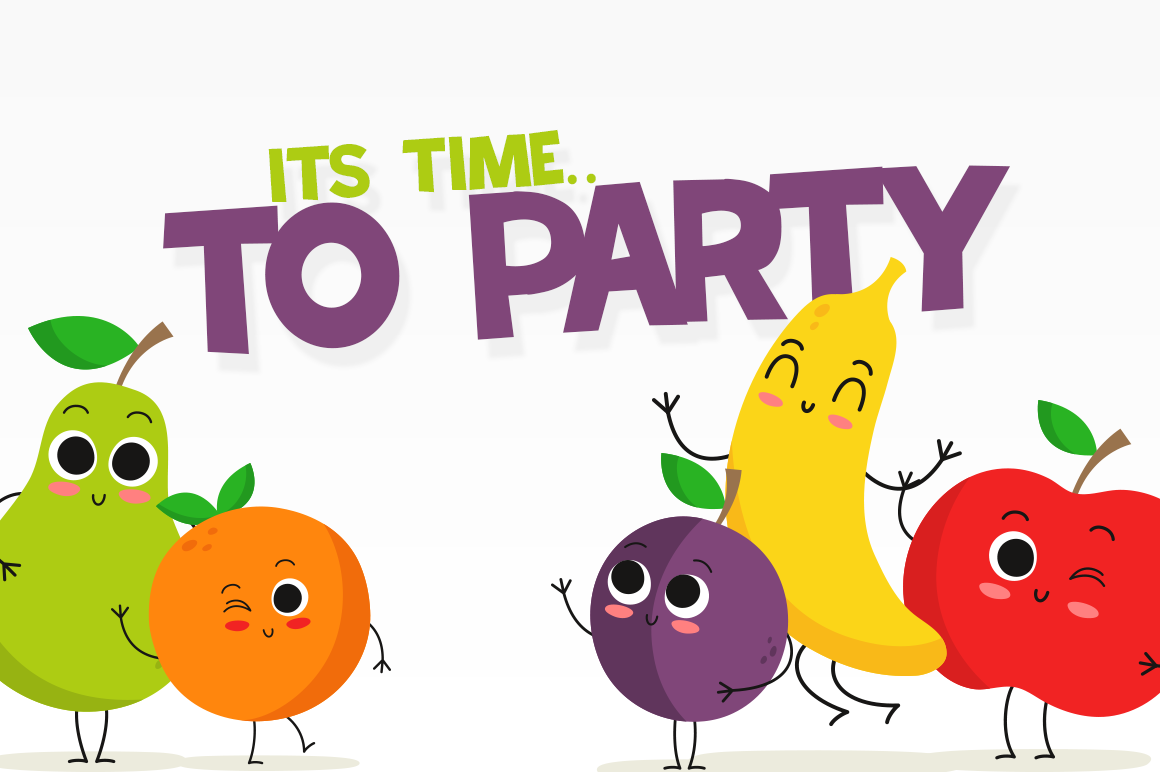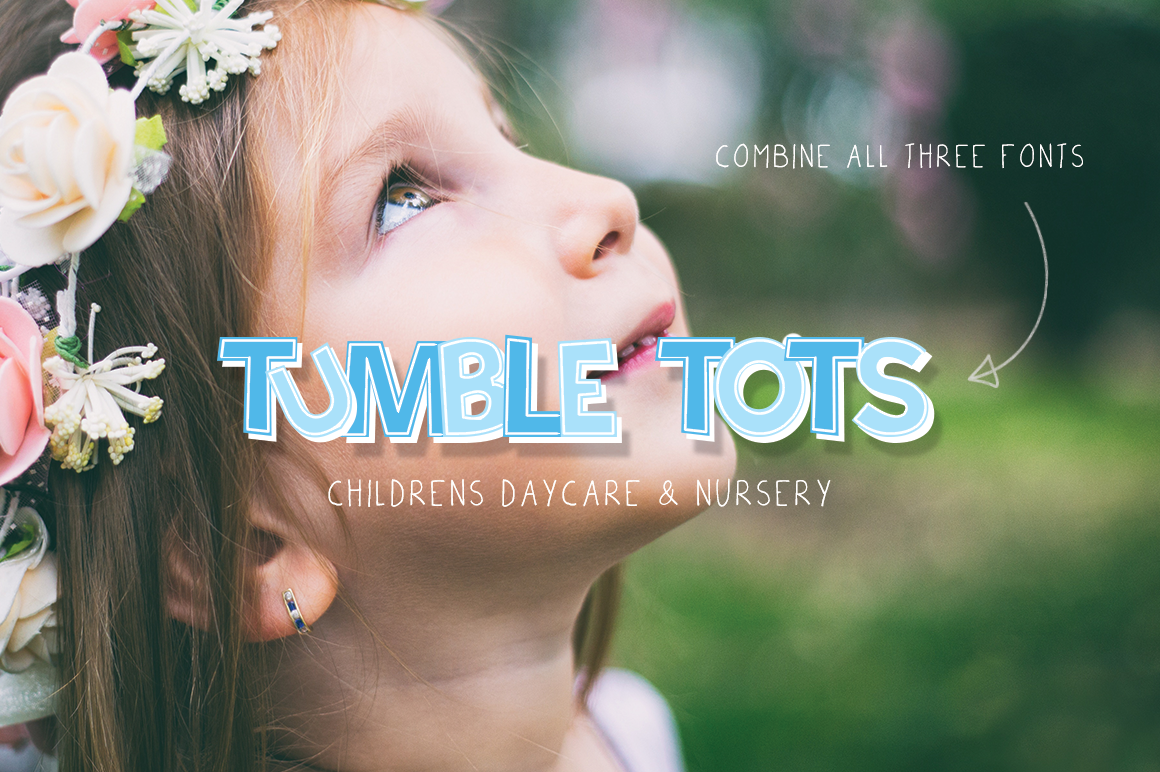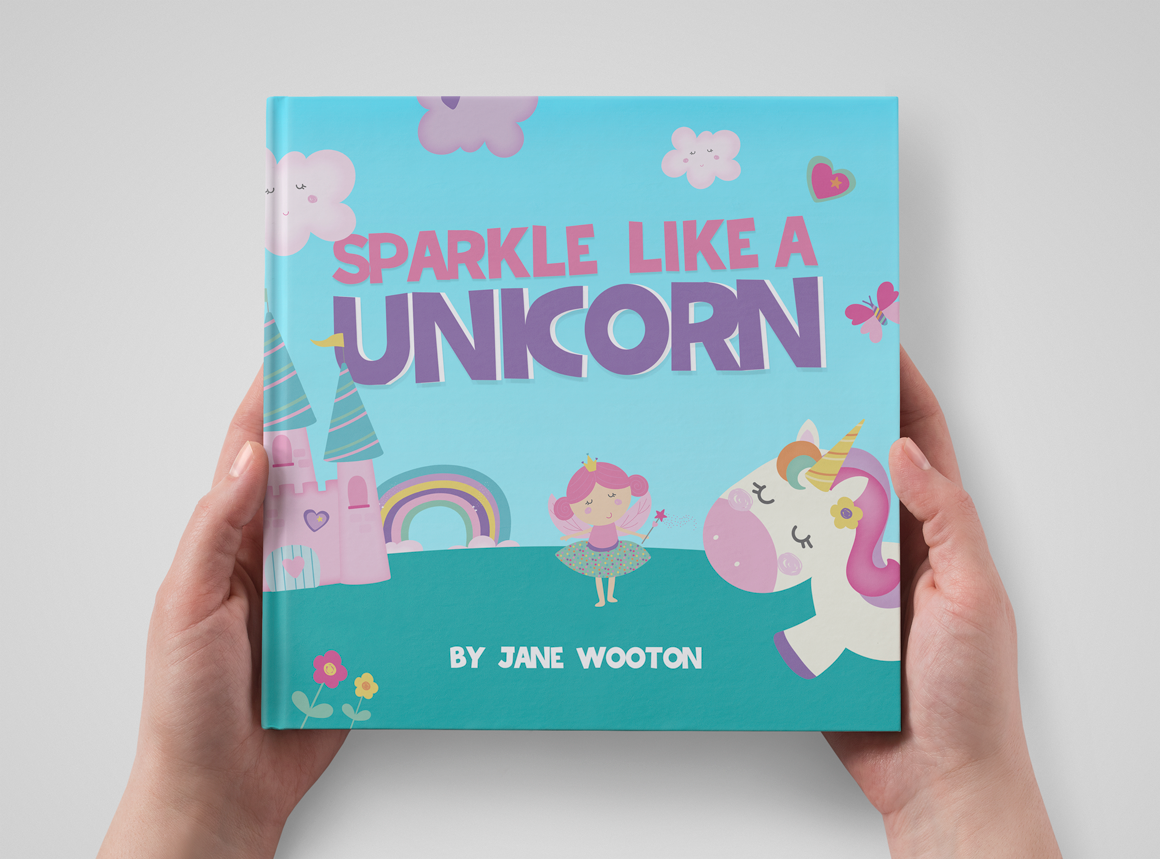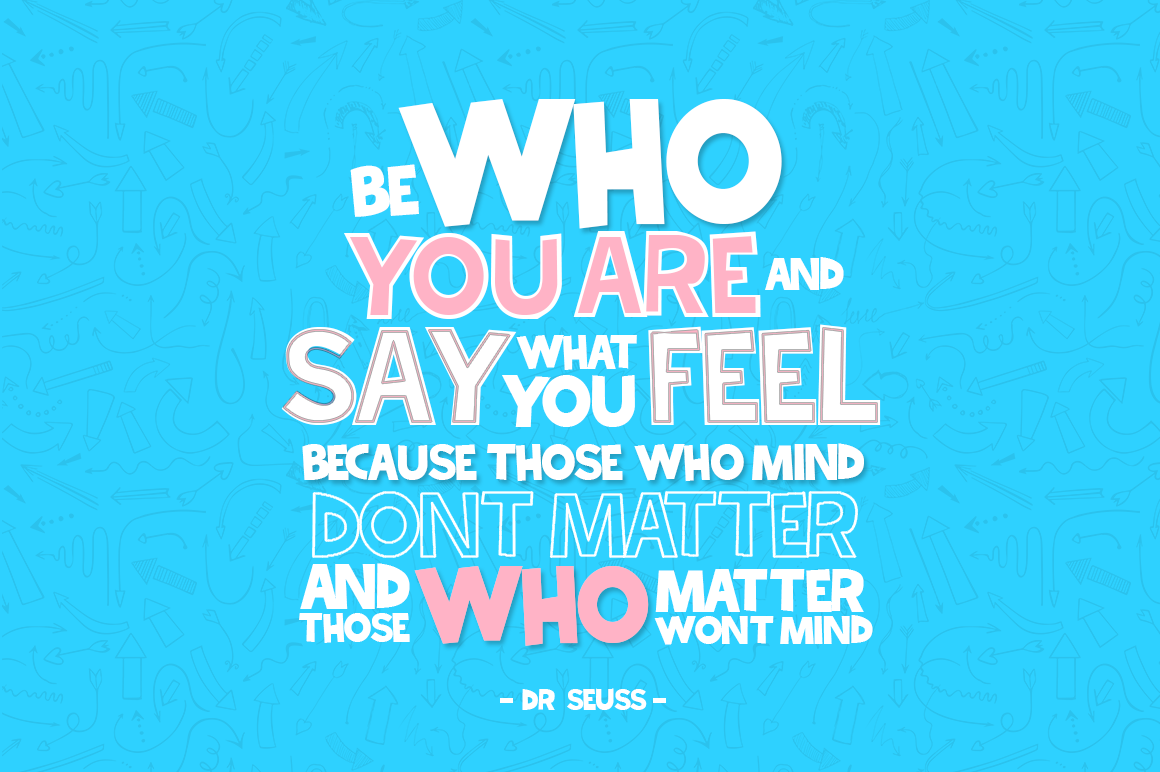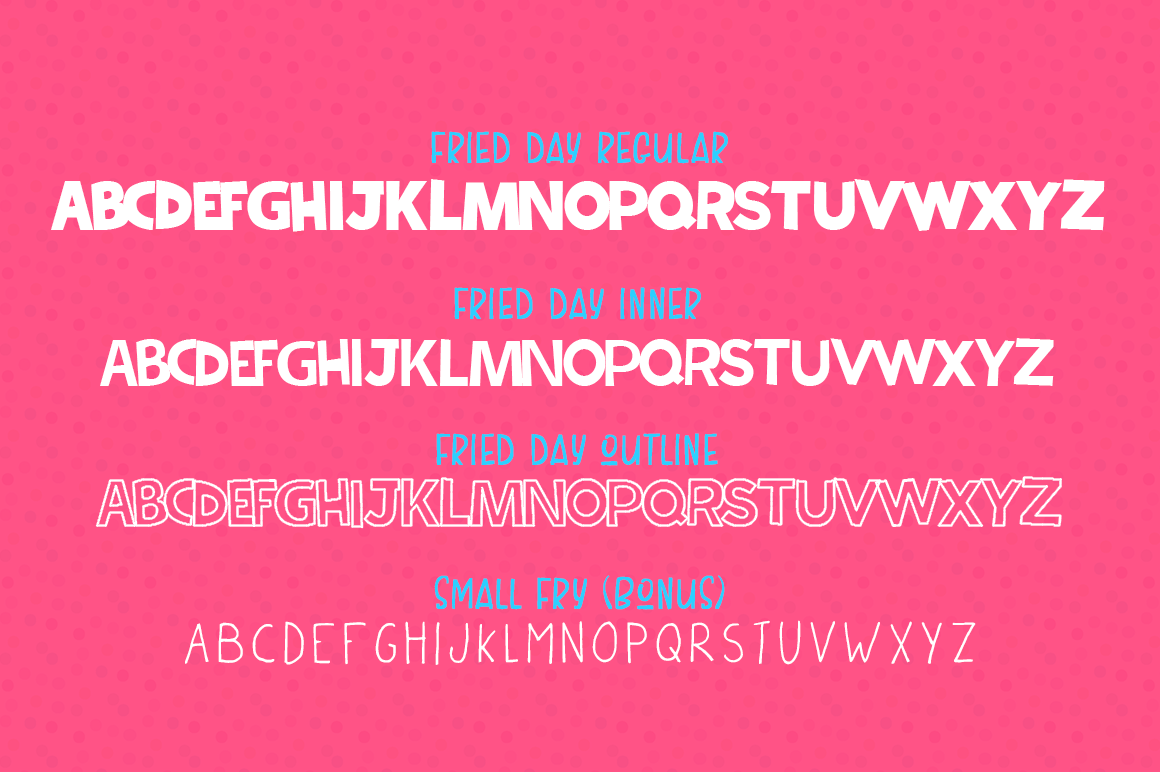
Introducing the Fried Day Family Font: A Fresh and Versatile Trio
Are you tired of using the same old fonts in your designs? Look no further! The Fried Day Family Font is here to shake things up with its playful and charming trio of fonts. This brand new font family is perfect for designers and crafters who want to add a touch of whimsy to their work.
The Story Behind the Font
So, why is it called the Fried Day Font? Well, let’s just say it’s a clever play on words. The creator of the font wanted to come up with a name that was a bit quirky and humorous. And, as they joke, “it’s not that funny, but we think it’s egg-cellent!” The name may be a bit corny, but the font itself is anything but.
A Trio of Fonts for Endless Possibilities
The Fried Day Family Font consists of three fonts: Regular, Inner, and Outline. Each font can be used on its own or combined in various ways to create a range of effects. The Regular font is perfect for body text or headings, while the Inner and Outline fonts can be used to add a touch of creativity to your designs.
Combining Fonts for Unique Effects
One of the best things about the Fried Day Family Font is its versatility. By layering the Inner or Outline fonts over the Regular font, you can create a range of unique effects. For example, you can use the Outline font to create a fun and playful border around your text, or use the Inner font to add a subtle shadow effect.
The Fried Day Family Font is perfect for designers and crafters who want to add a personal touch to their work. Whether you’re creating a logo, a poster, or a handmade craft, this font family has got you covered. The fonts are easy to read and come in a range of styles, making them perfect for a variety of projects.
Key Features of the Fried Day Family Font
- Three unique fonts: Regular, Inner, and Outline
- Endless possibilities: Combine fonts in various ways to create unique effects
- Easy to read: Perfect for body text or headings
- Versatile: Suitable for a range of projects, from logos to posters to handmade crafts
- Playful and charming: Adds a touch of whimsy to your designs
Tips for Using the Fried Day Family Font
Here are a few tips for getting the most out of the Fried Day Family Font:
- Experiment with layering: Try combining the Inner and Outline fonts with the Regular font to create unique effects
- Use it for headings: The Fried Day Family Font is perfect for headings and titles
- Add a personal touch: Use the font to add a personal touch to your designs and crafts
- Mix and match: Combine the Fried Day Family Font with other fonts to create a unique look
The Fried Day Family Font is a fresh and versatile trio of fonts that’s perfect for designers and crafters. With its playful and charming style, it’s sure to add a touch of whimsy to your work. Whether you’re creating a logo, a poster, or a handmade craft, this font family has got you covered. So why not give it a try and see what amazing things you can create?